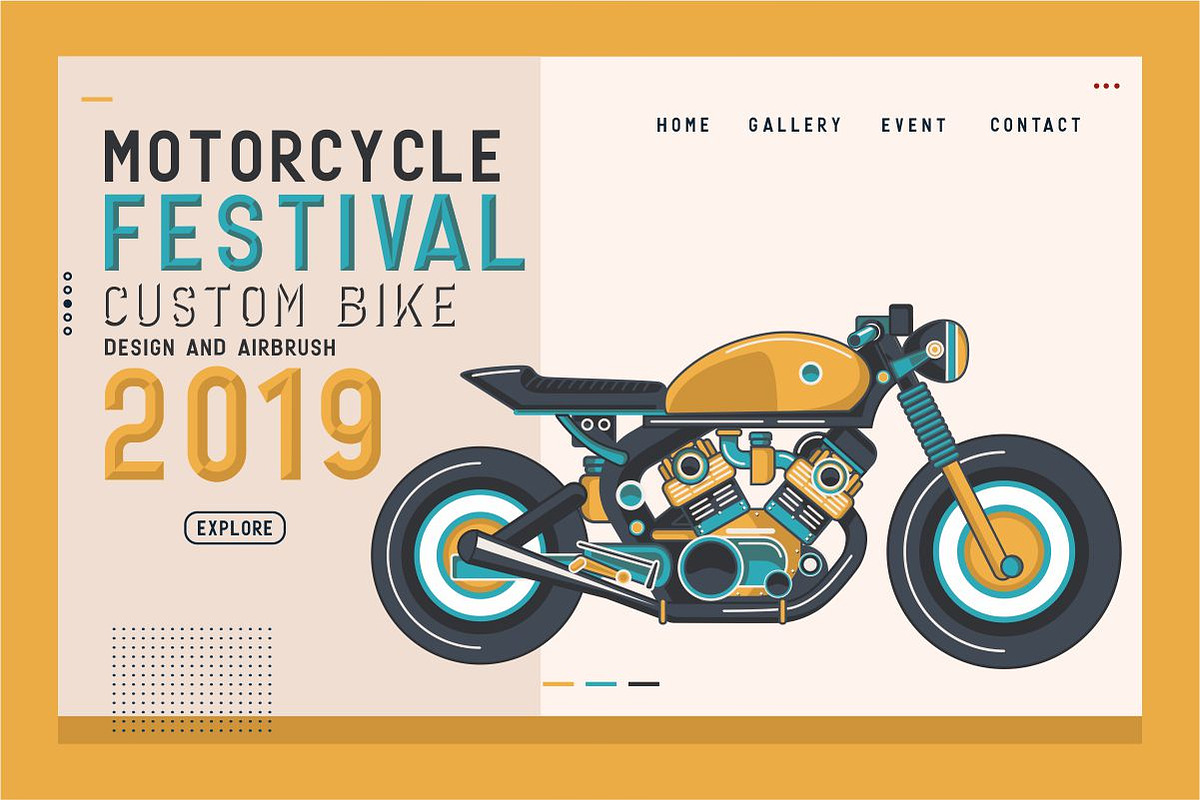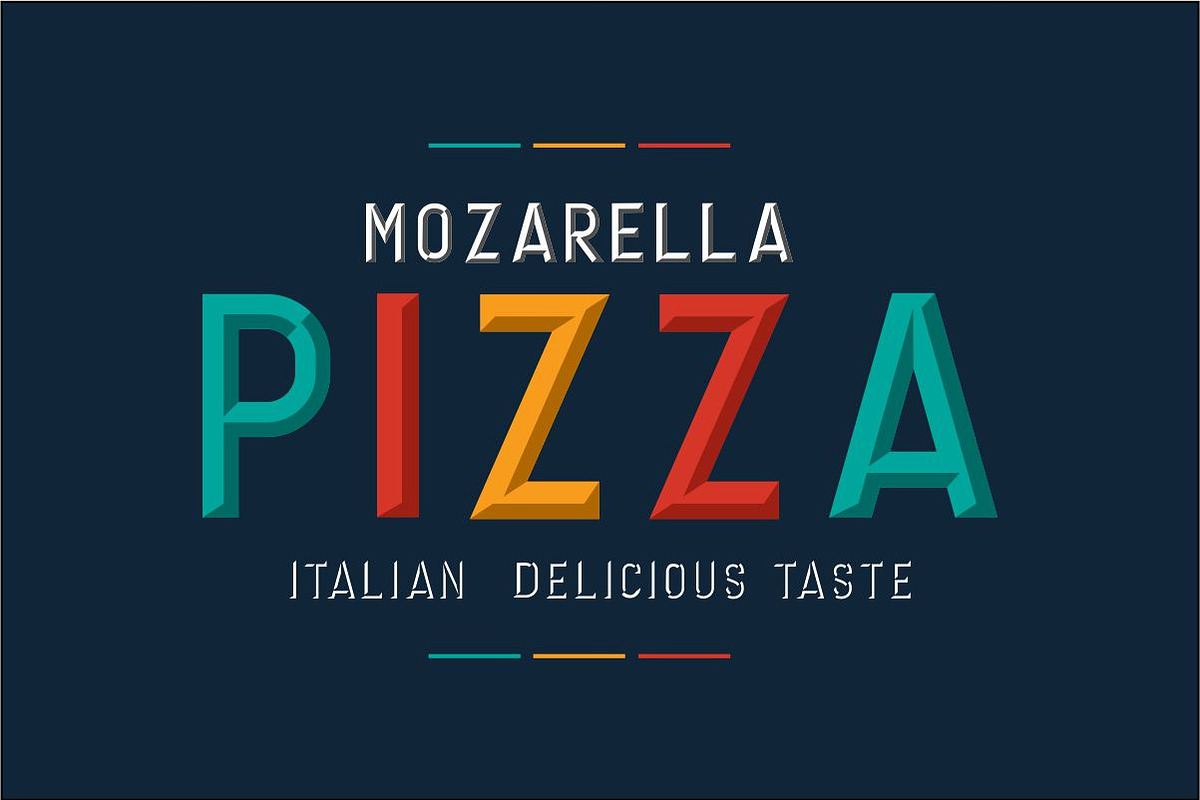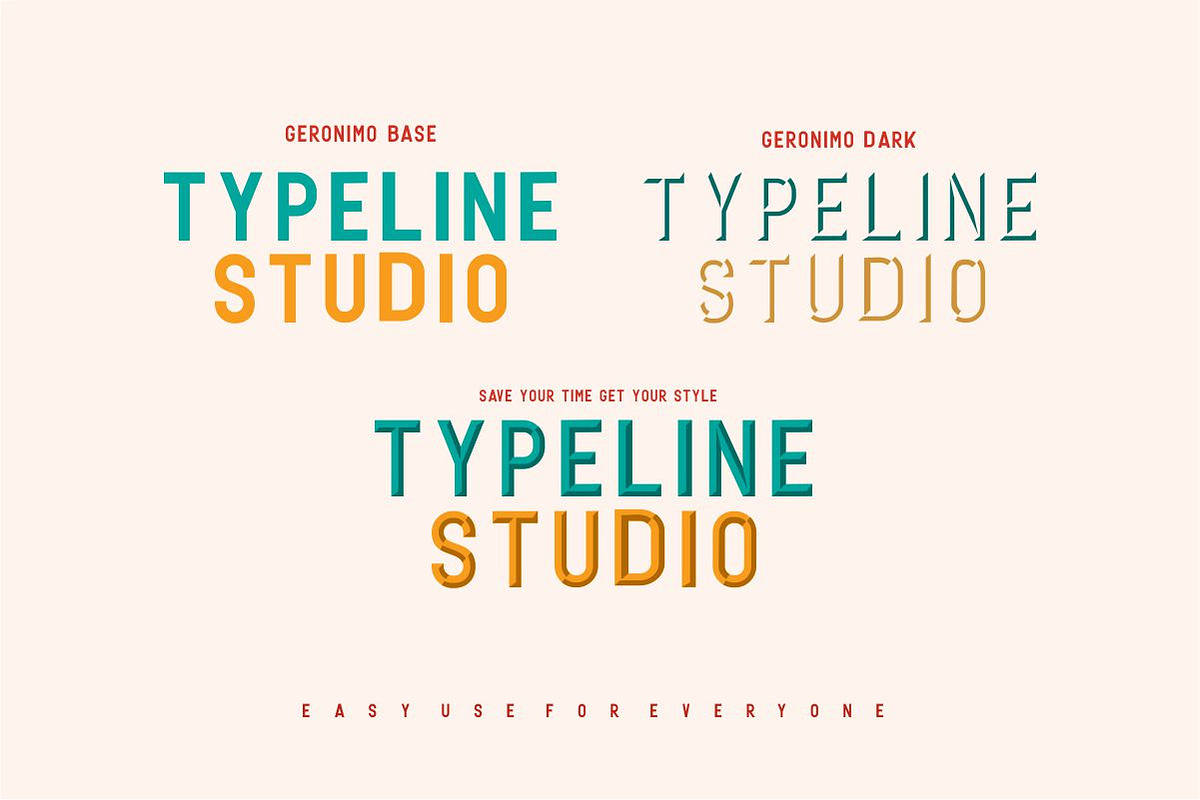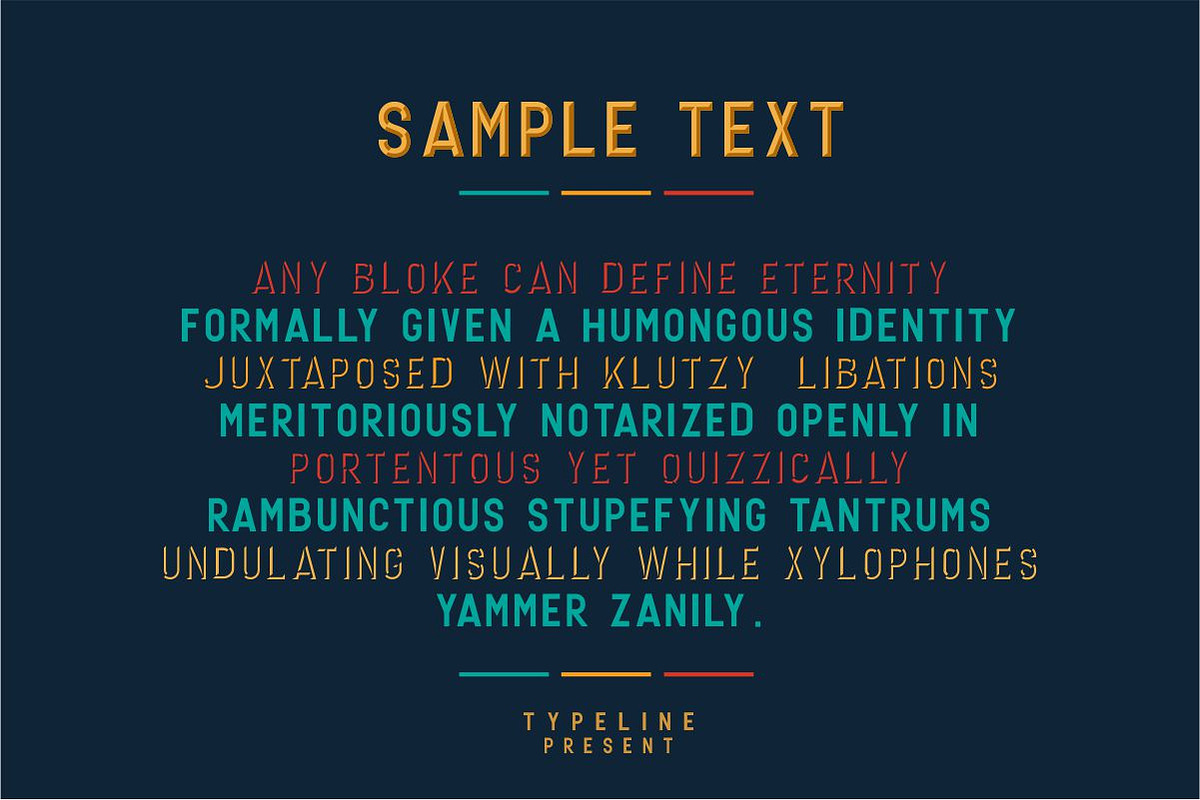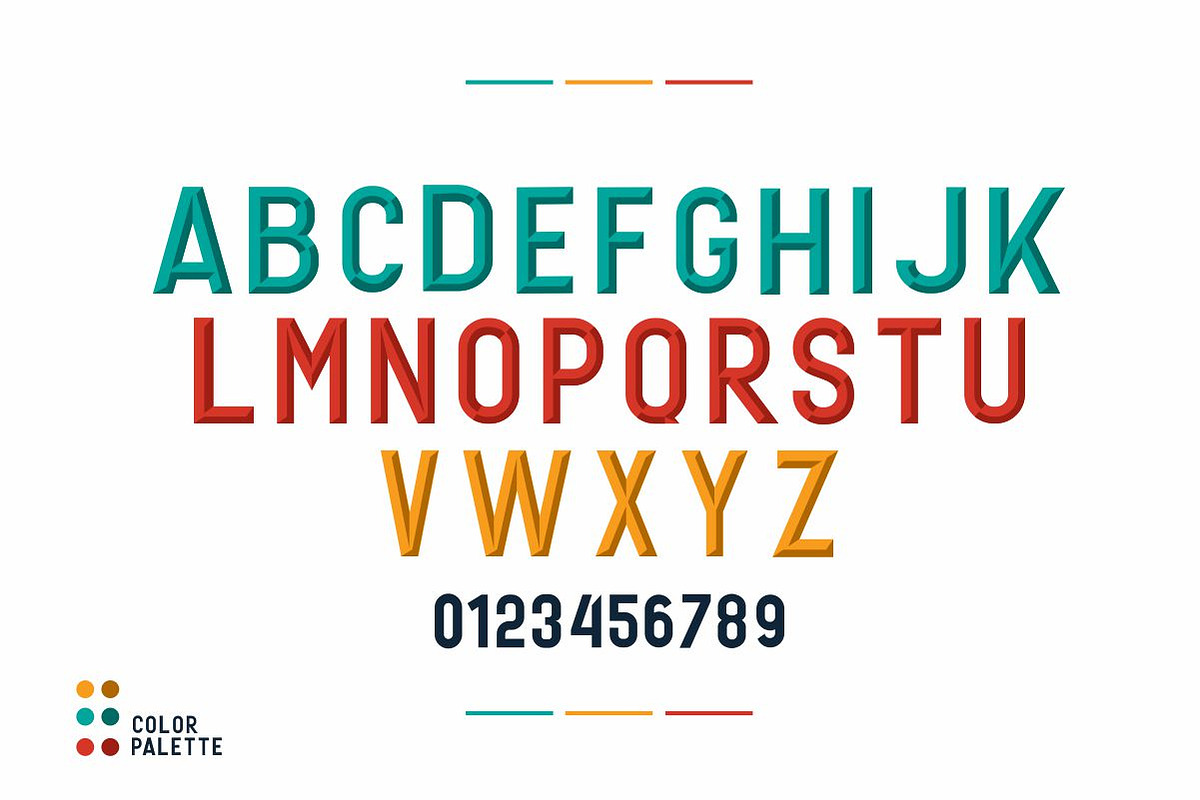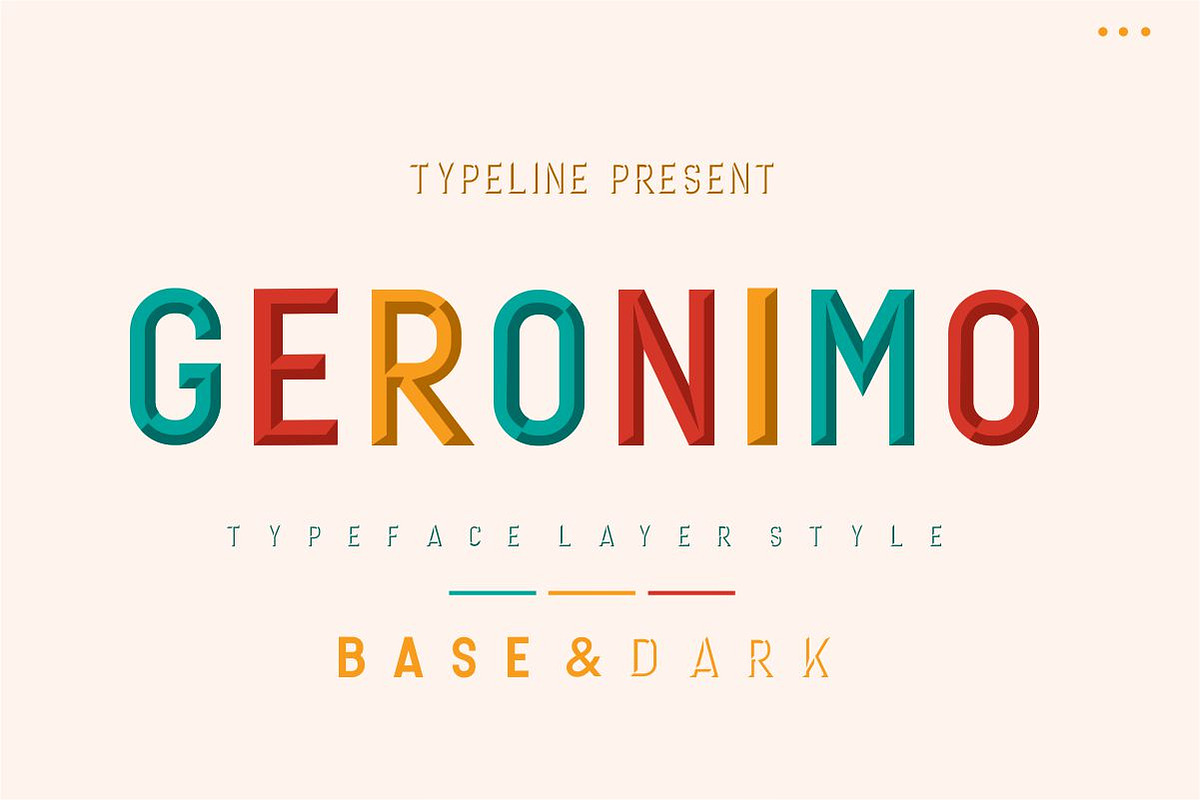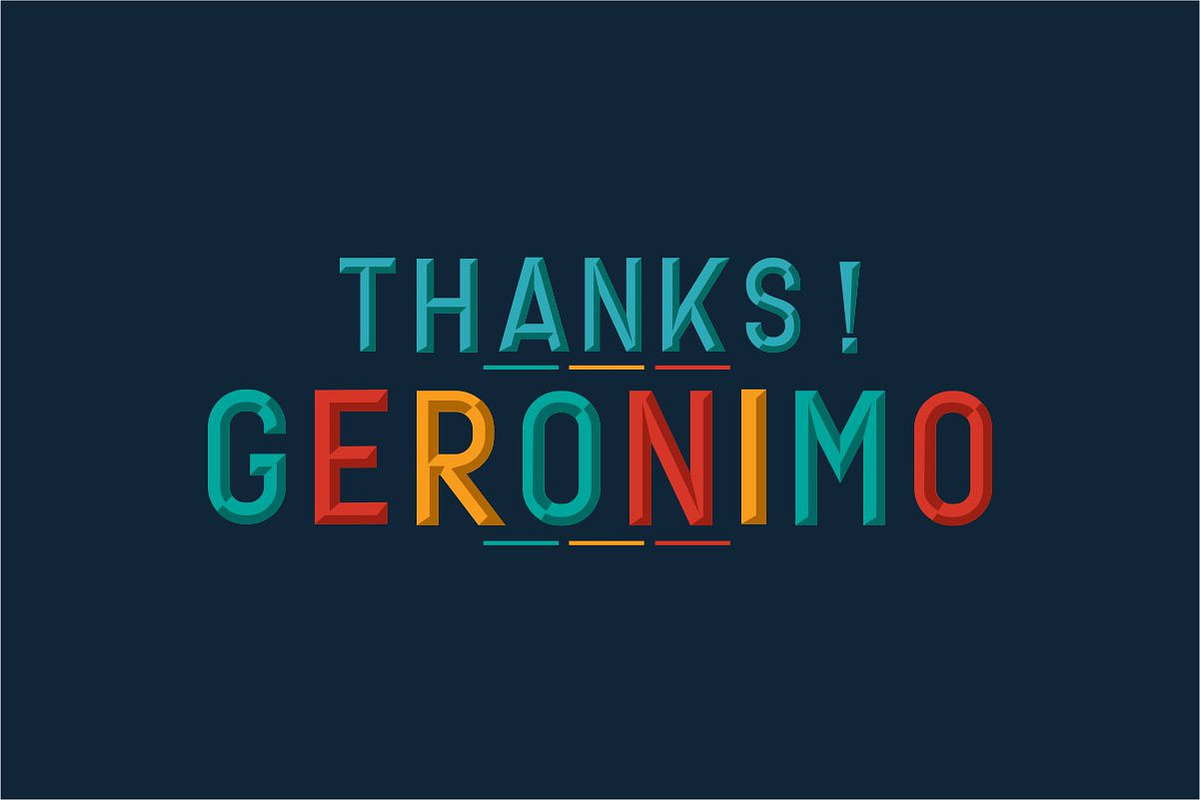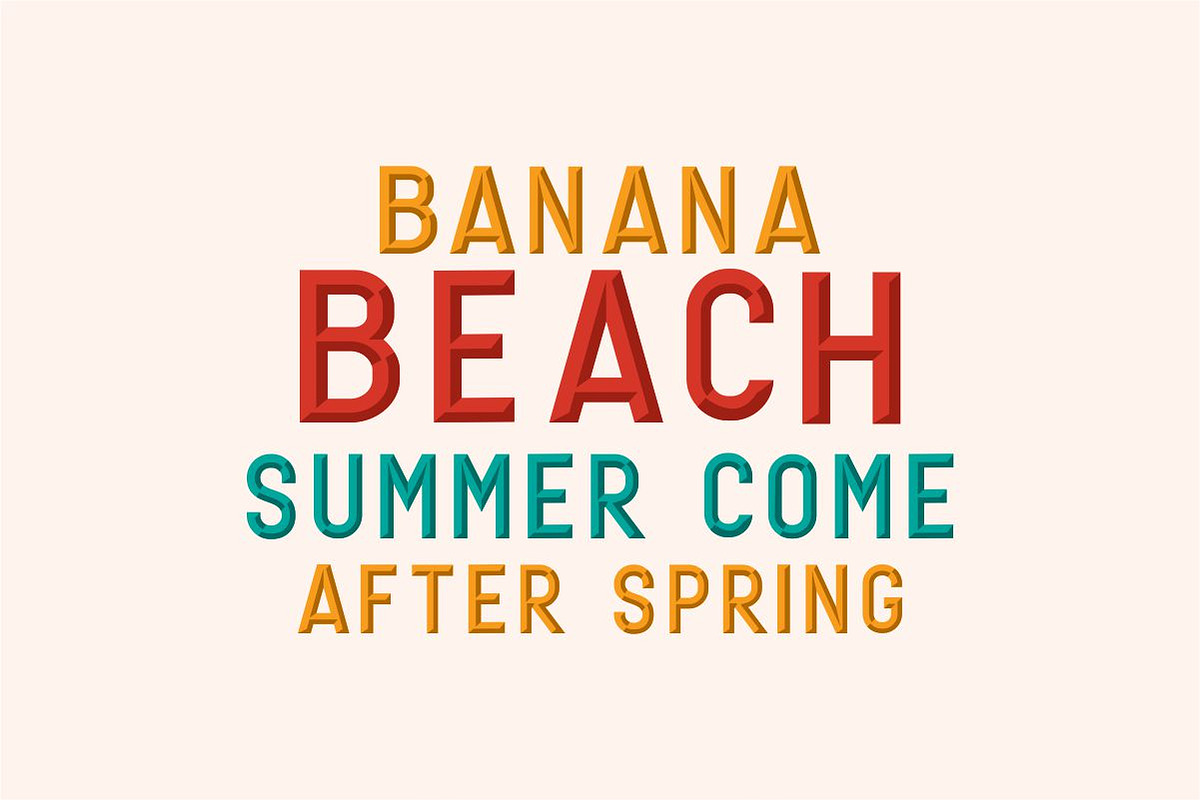
Geronimo Typeface Layer
Geronimo is a 2019 family project font and I am currently releasing it in the form of all layered touch caps like the offset prints that are often used by special painter marks, so that it can provide an attractive and modern touch but has good esthetics,
I made it by thinking carefully how this font can be used according to the needs you want. This font is very suitable for use in various design applications, such as branding, logo, design tshirt, posters, UI and ux and others.